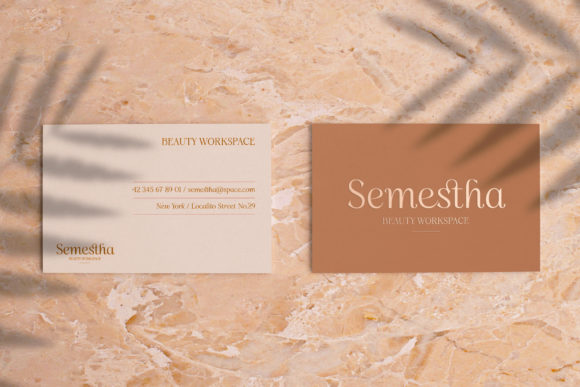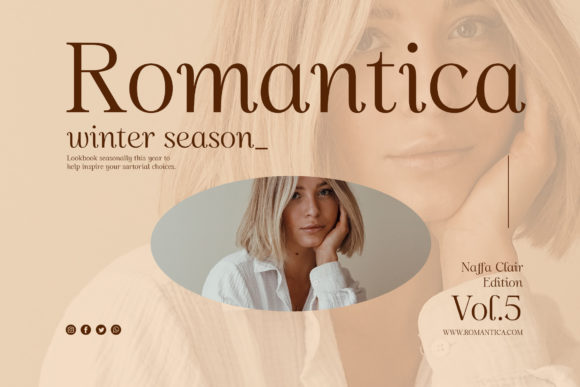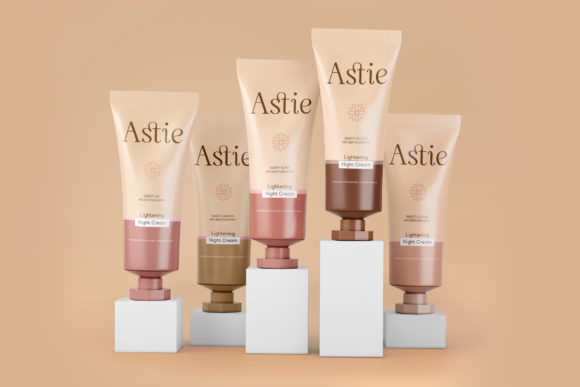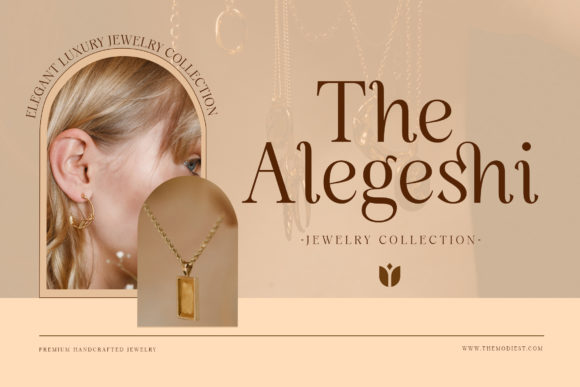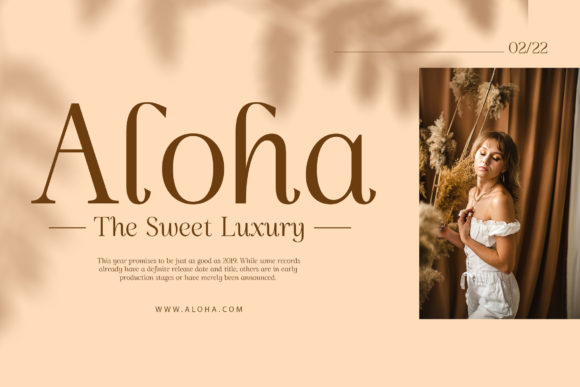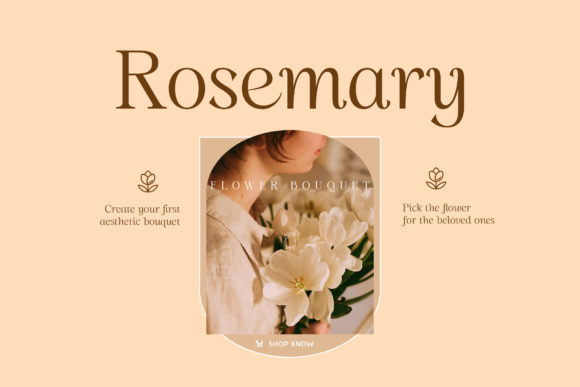
Unlocking the Power of Your Next Creative Project with Questwin Font
Have you ever been in the midst of a creative project, staring at a blank page, and feeling like the perfect font is just out of reach? The search for the perfect typography can be a daunting task, but what if you stumbled upon a font that elevates your design to the next level? Enter the Questwin Font, a stunning serif font that is poised to revolutionize the way you approach your creative projects.
| 👤 Author | Typia Nesia |
As a valuable addition to any designer’s library, the Questwin Font offers a high-quality, elegant look that is sure to impress. Whether you’re working on a free download project or a paid design, this font is the perfect resource to help you create something truly special. With its versatility and sophisticated design, the Questwin Font is the perfect choice for any creative endeavor.
Key Features of Questwin Font
- Unique, modern design with a transparent background, ideal for use on various backgrounds.
- Includes a wide range of glyphs, including Latin and Cyrillic alphabets, to cater to diverse design needs.
- Perfect for use in digital and print media, including web design, graphic design, and publishing projects.
Honest Review: Questwin Font
I recently had the chance to work with the Questwin Font for a creative project, and I must say it was a delightful experience. The font’s high quality and versatility made it an excellent addition to my design.
- High-quality design: The Questwin Font has a crisp and clear design, making it perfect for a wide range of creative projects.
- Transparent background: The font’s transparent background made it easy to overlay it on top of other design elements.
- Design resource: The font is an excellent design resource for anyone looking to add a unique touch to their creative project.
One limitation I encountered was the font’s limited character set. While it was sufficient for my project, it may not be ideal for more complex designs that require a wider range of characters.
Overall, I’m impressed with the Questwin Font. It’s a high-quality design resource that’s perfect for creative projects, and its free download makes it accessible to designers of all levels. I’d definitely recommend it to anyone looking for a unique and stylish font.
For the best results, use the Questwin Font with a transparent background to create a modern and sleek design. This font is ideal for logos, headings, and titles in various creative projects. Some common use cases include branding, advertising, and digital media.